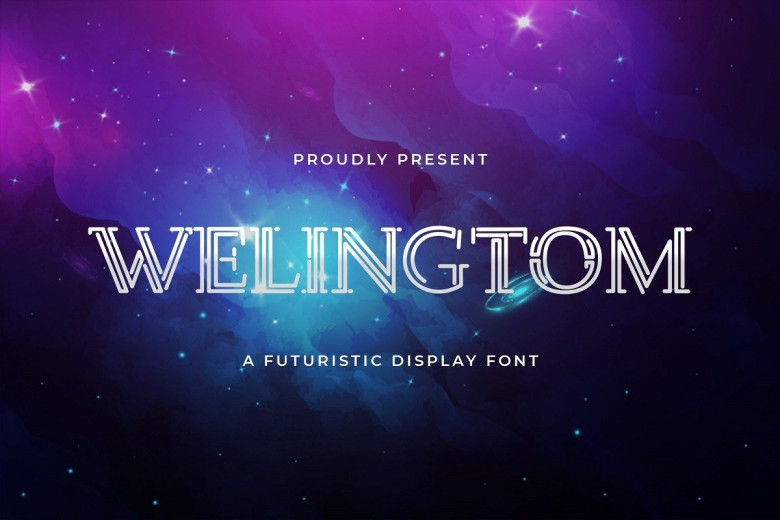
Welingtom Display Font
Welingtom Font is an art deco themed display font with uppercase multilingual letters, numbers and punctuation. It utilizes clean and bold characters that are scalable and easy to read. Welingtom is perfect for branding projects, home-ware designs, product packaging, magazine headers – or simply as a stylish text overlay to any background image.